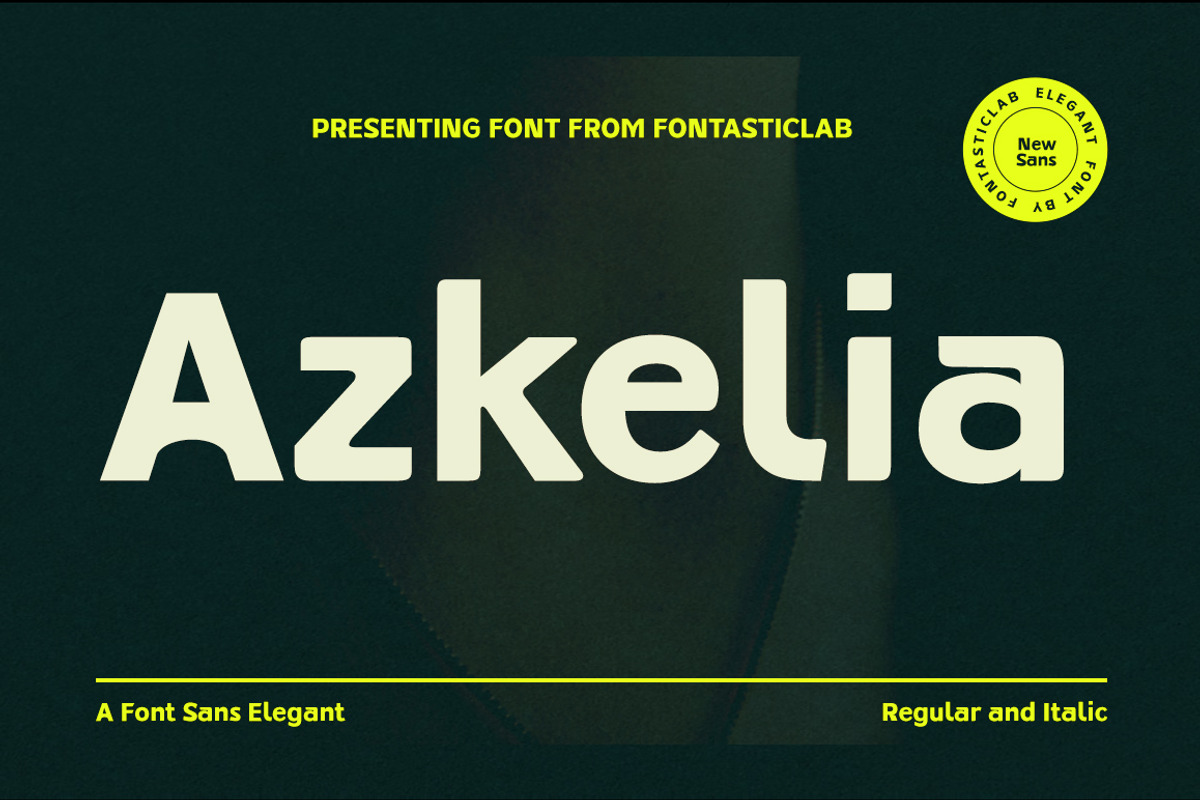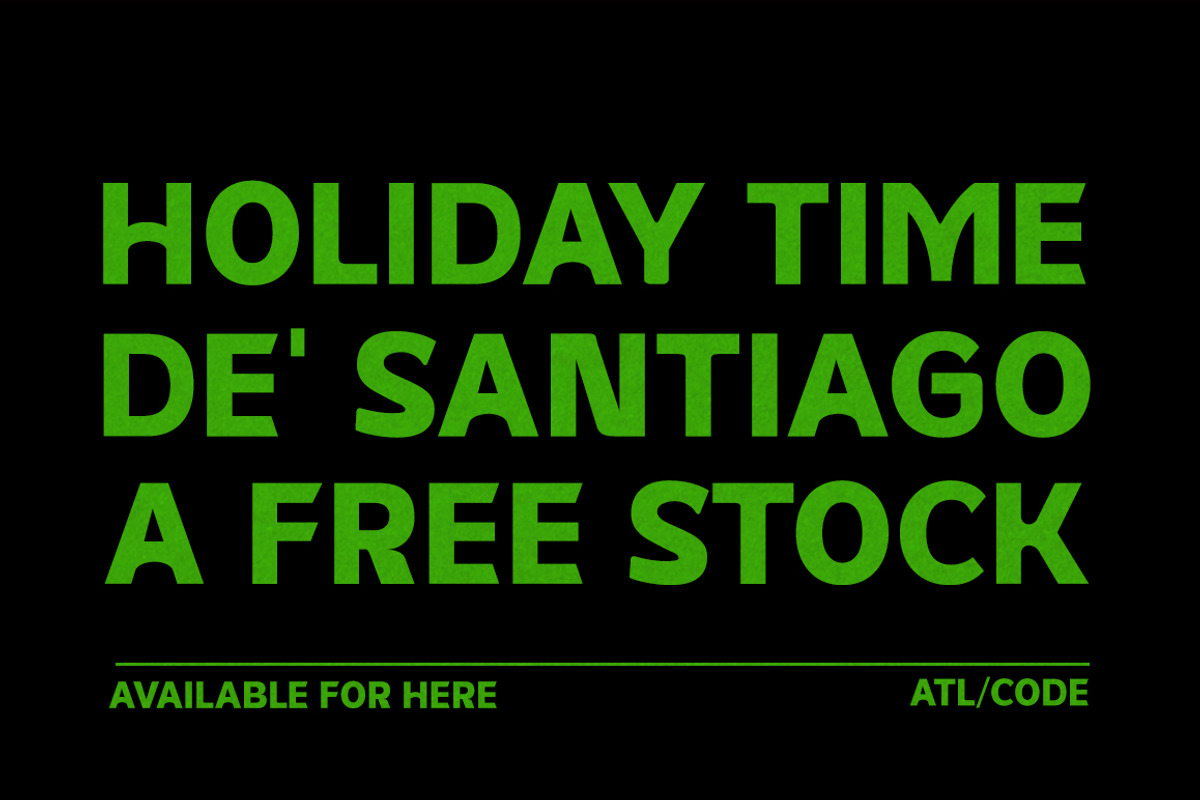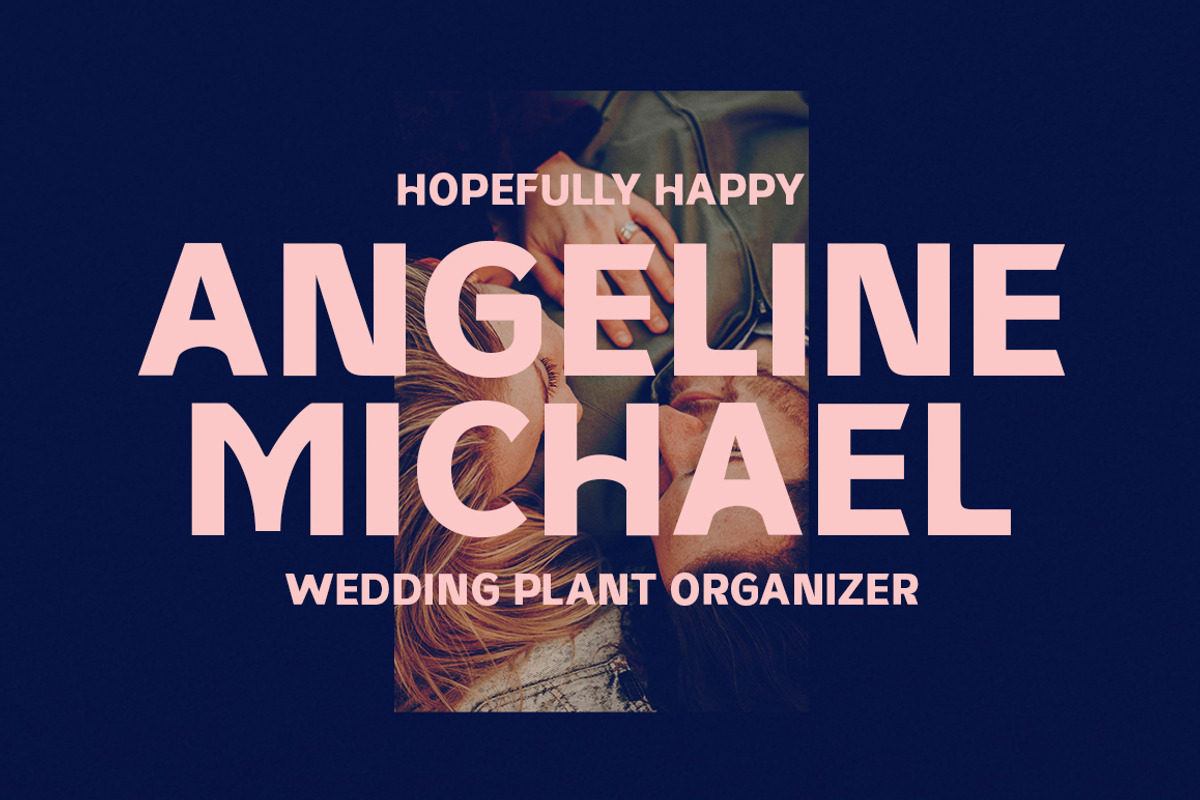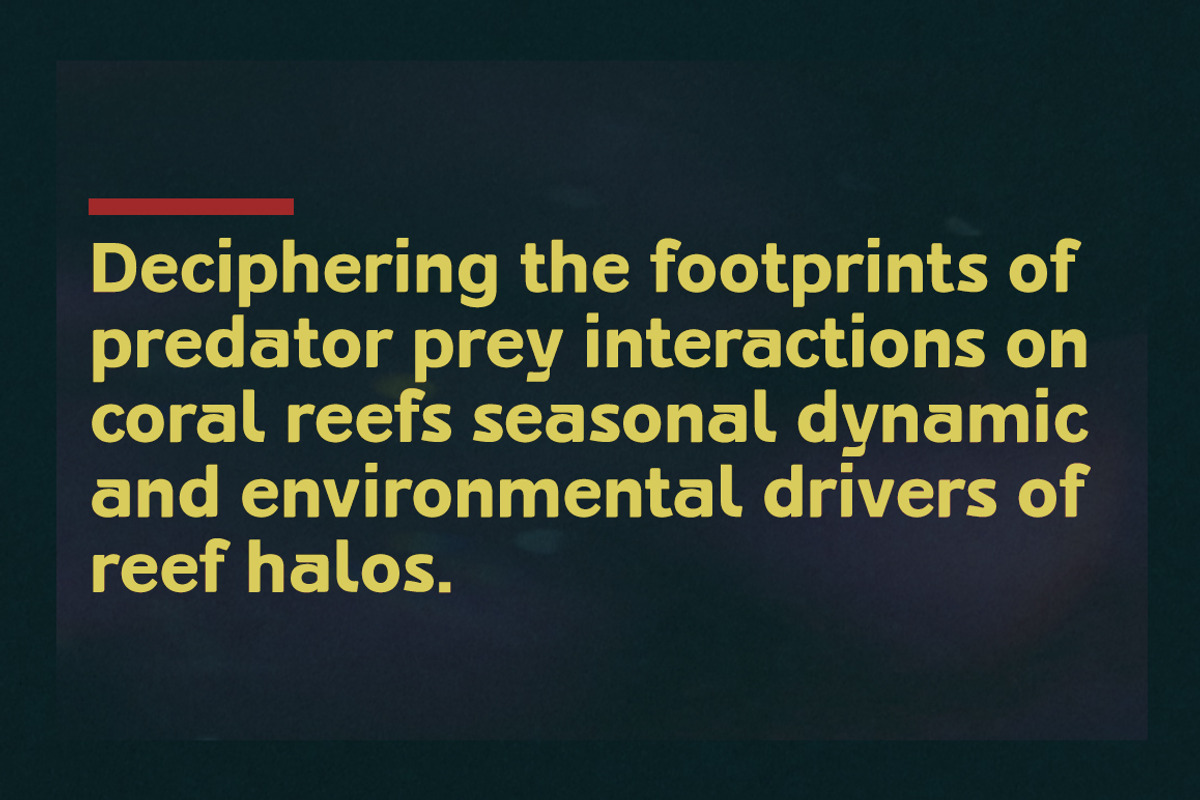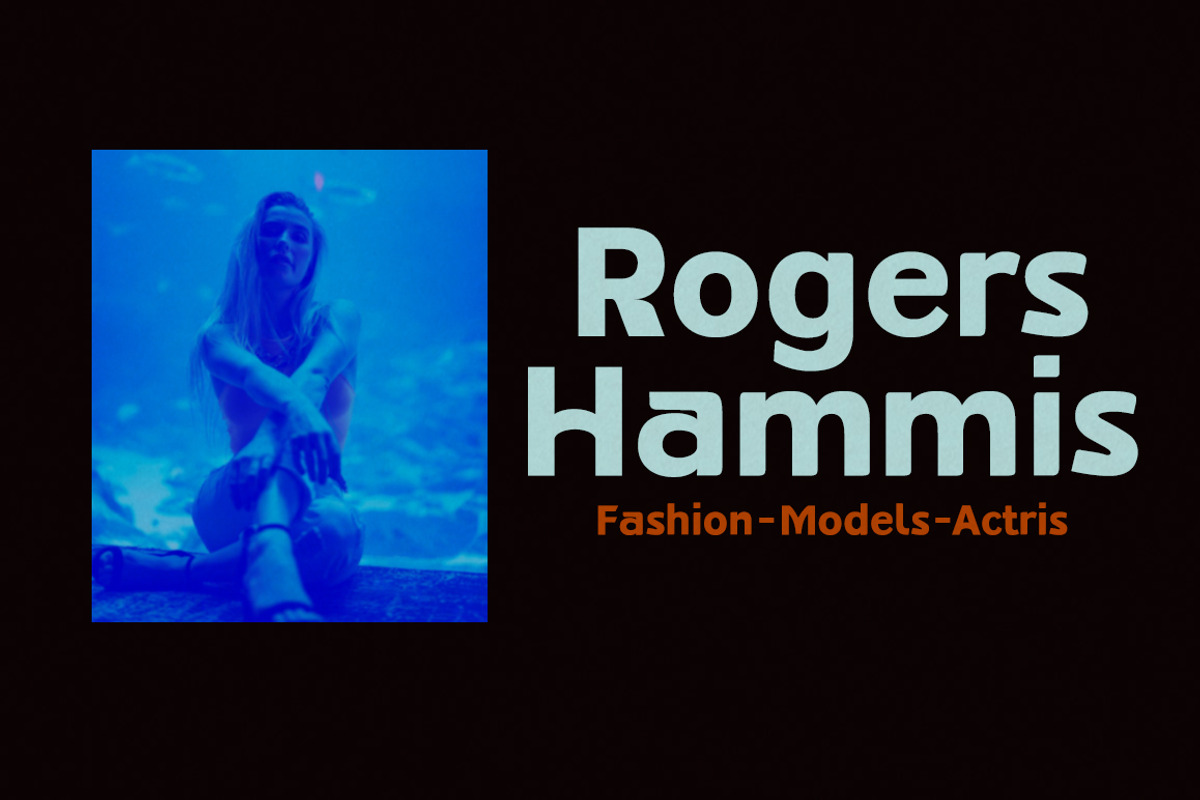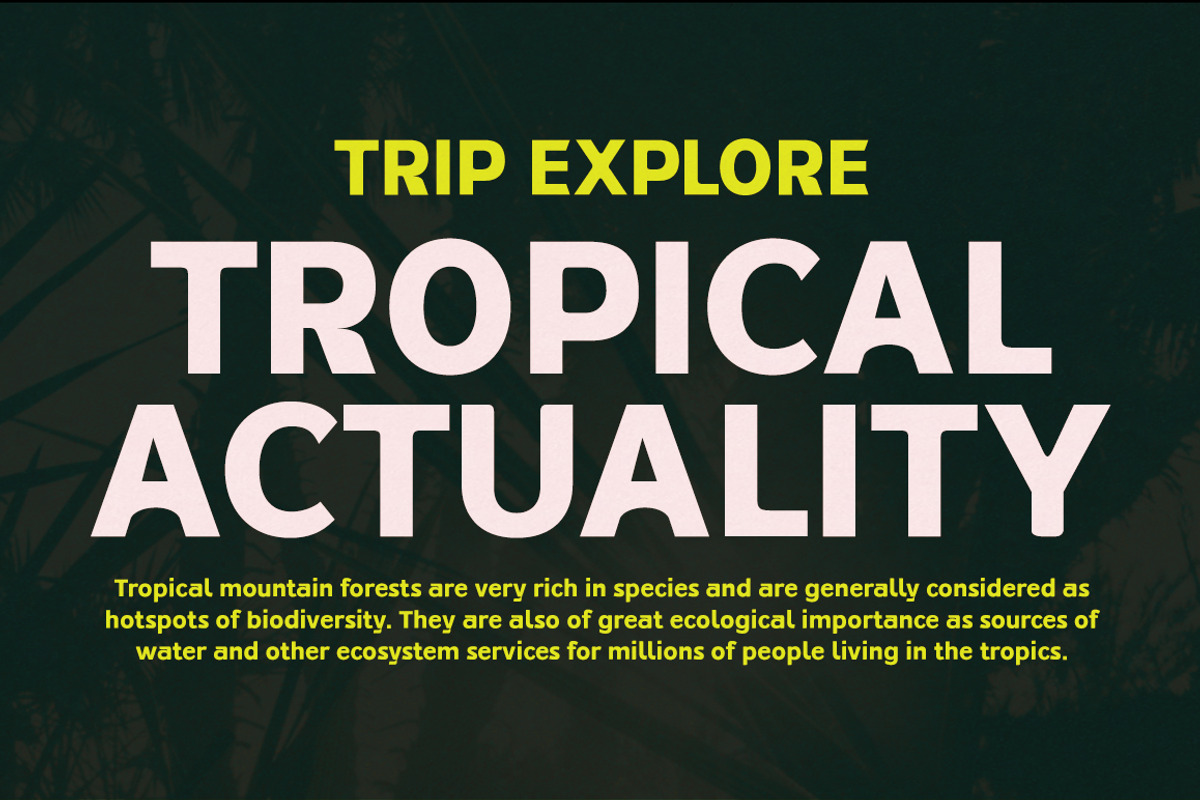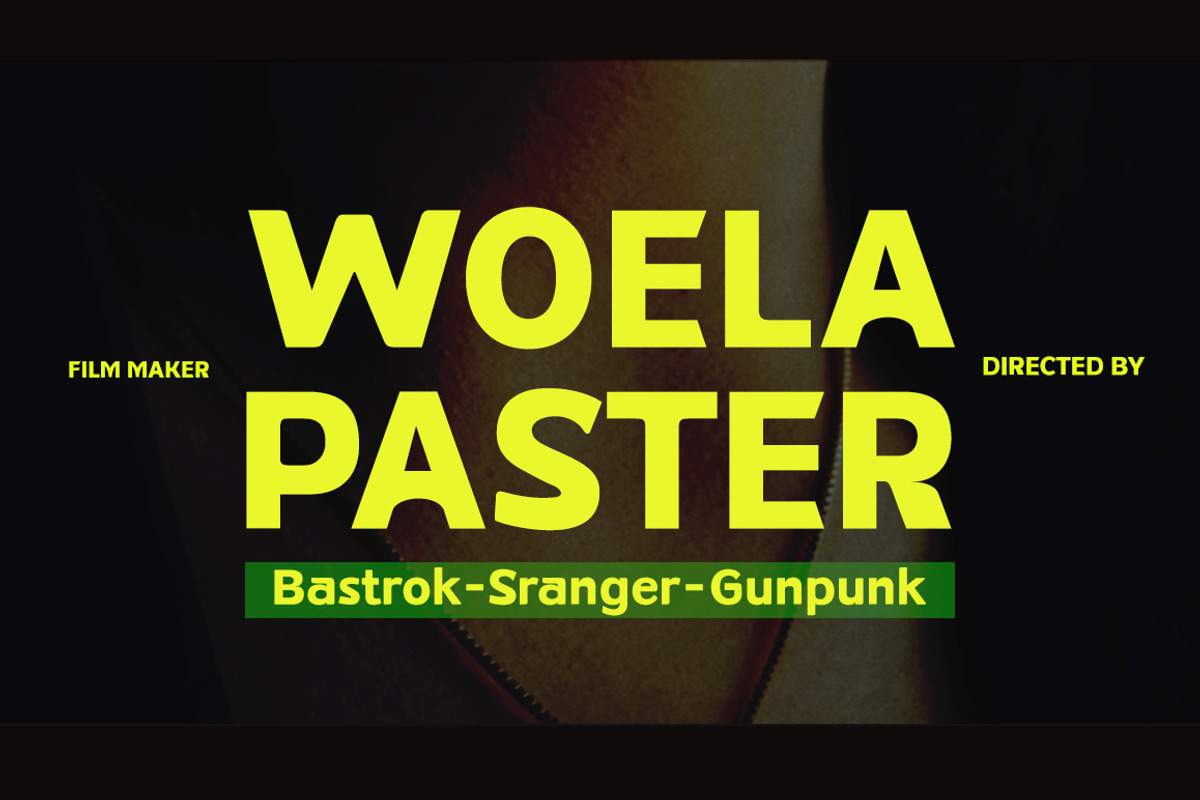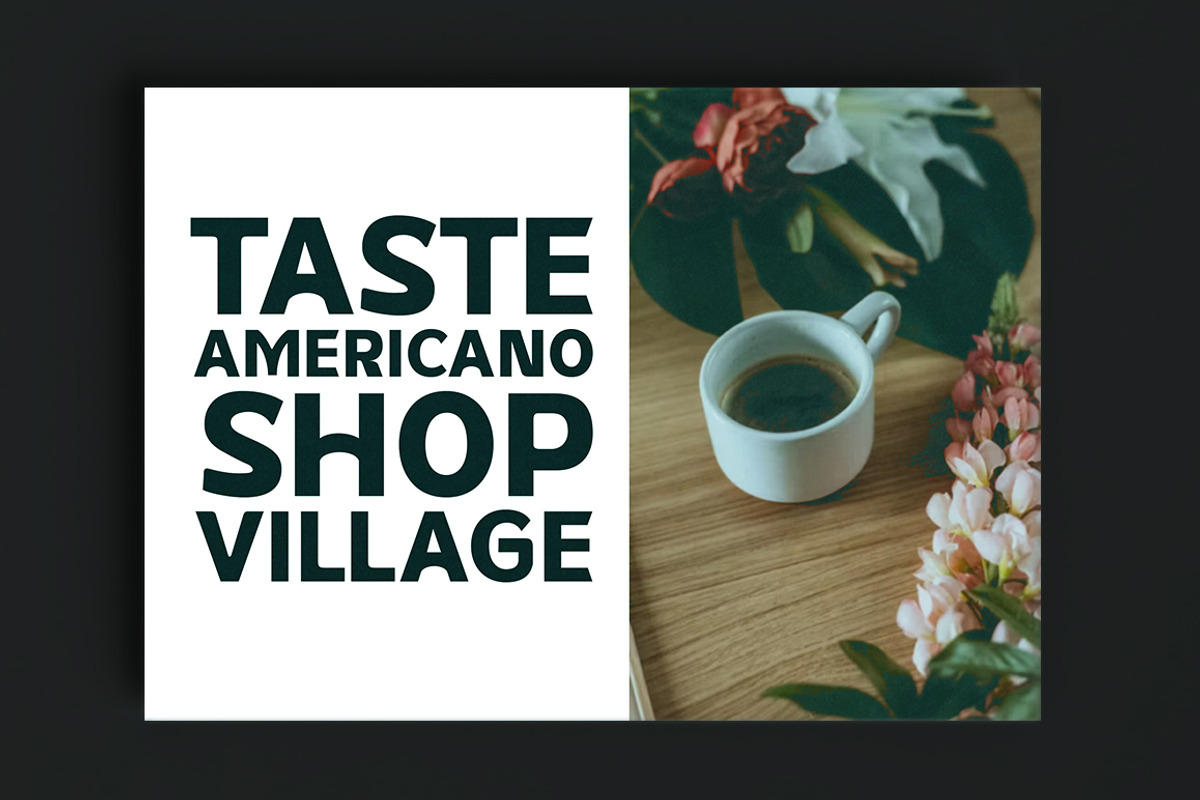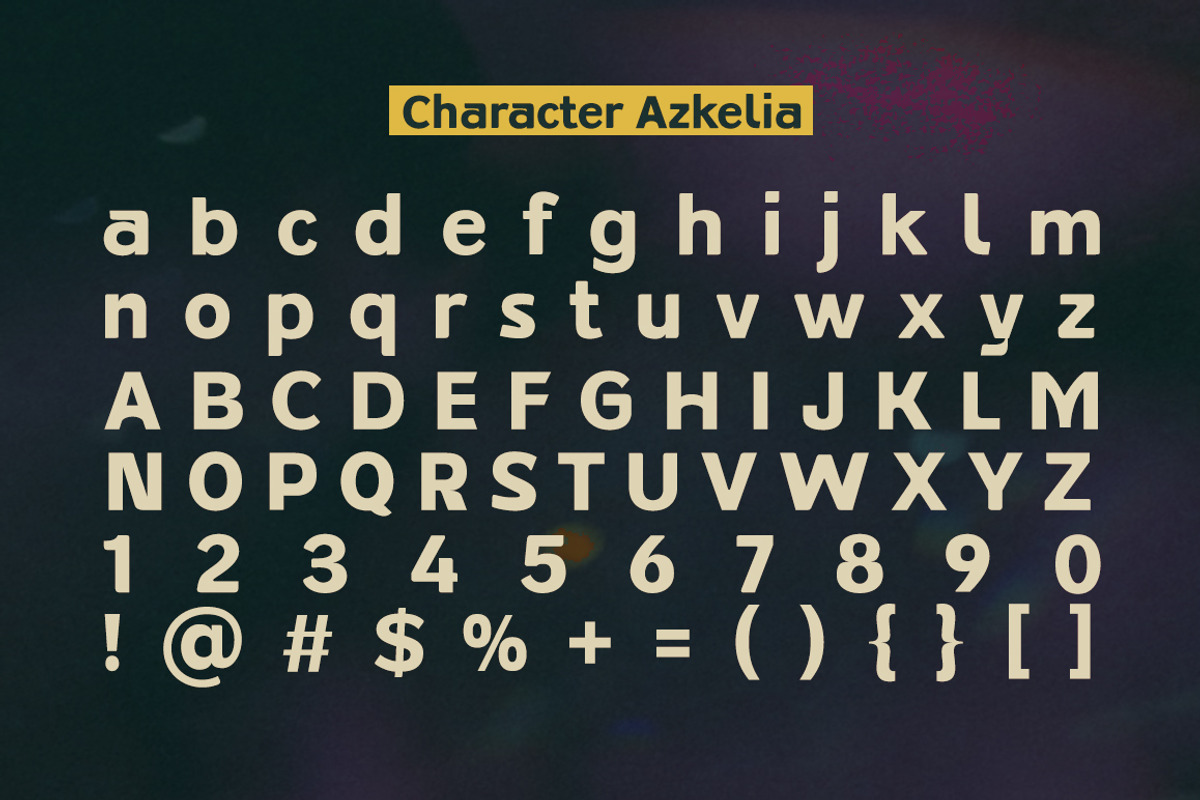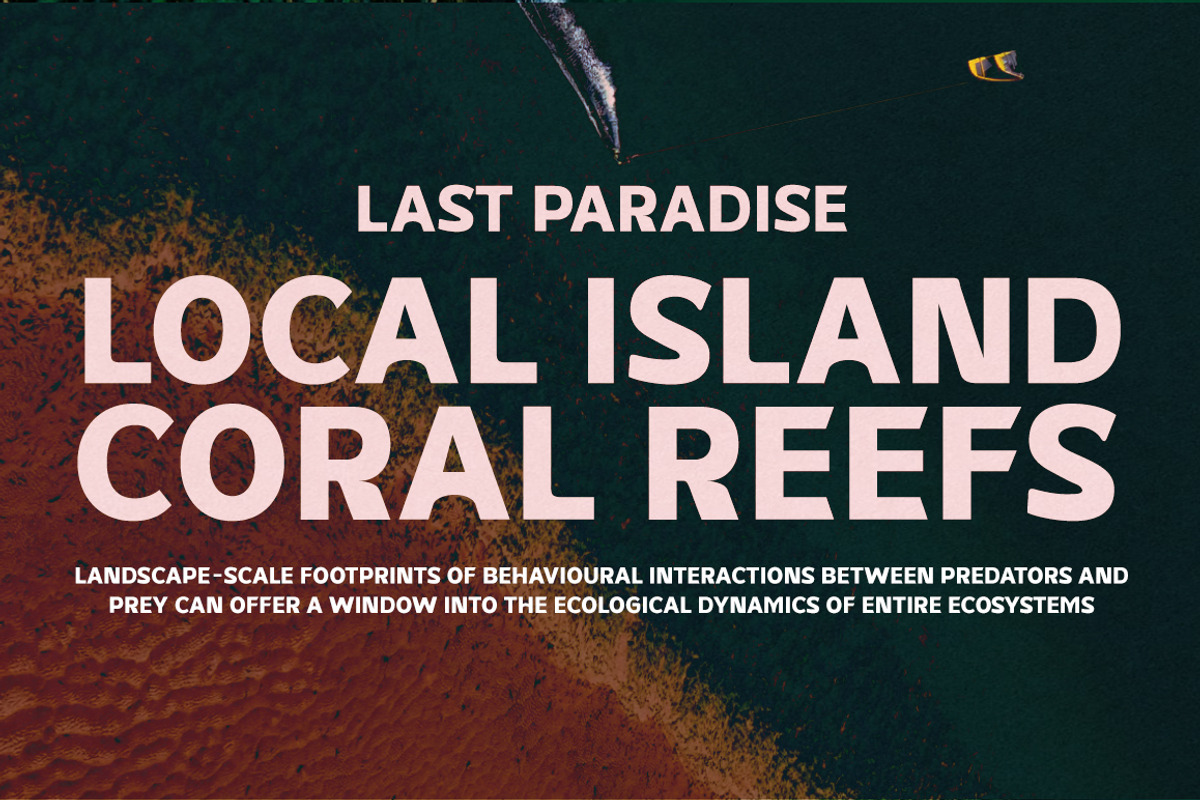
Azkelia
Azkelia offers a charming and elegant style. These two characters, in keeping with current trends, will be very appealing for you to create classy designs while maintaining a stable and sophisticated style.
You'll find inspiration in a variety of alternative ligature and swash glyph styles to combine with your extraordinary creativity!